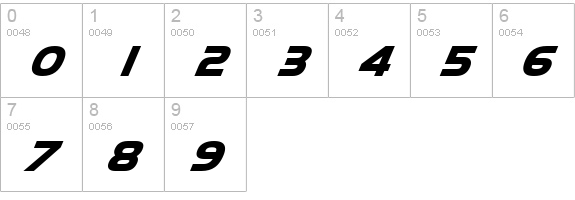
Introducing AF PEPSI, a modern and stylish font that exudes confidence and sophistication. This font is the perfect choice for those seeking to make a bold statement with their designs. With its sleek and clean lines, AF PEPSI captures attention and adds an air of professionalism to any project. What makes AF PEPSI truly stand out is its versatility. Whether you're designing a logo, creating a poster, or working on a branding project, this font adapts effortlessly to various styles and themes, making it a valuable asset in any designer's toolkit. But what sets AF PEPSI apart from other fonts is that it is freely available to download at FontsMarket.com. Yes, you read that right - this stunning font can be yours without any cost. FontsMarket.com understands the importance of accessibility and believes that every designer should have access to high-quality resources without breaking the bank. So, why wait? Download AF PEPSI today and let your creativity soar. Whether you're a professional designer or a passionate hobbyist, this font will elevate your projects to new heights. With AF PEPSI, you have the power to make a lasting impression and leave your audience in awe. Don't miss out on this incredible opportunity to add a touch of elegance and sophistication to your designs, all for free. Head over to FontsMarket.com now and unlock the potential of AF PEPSI.